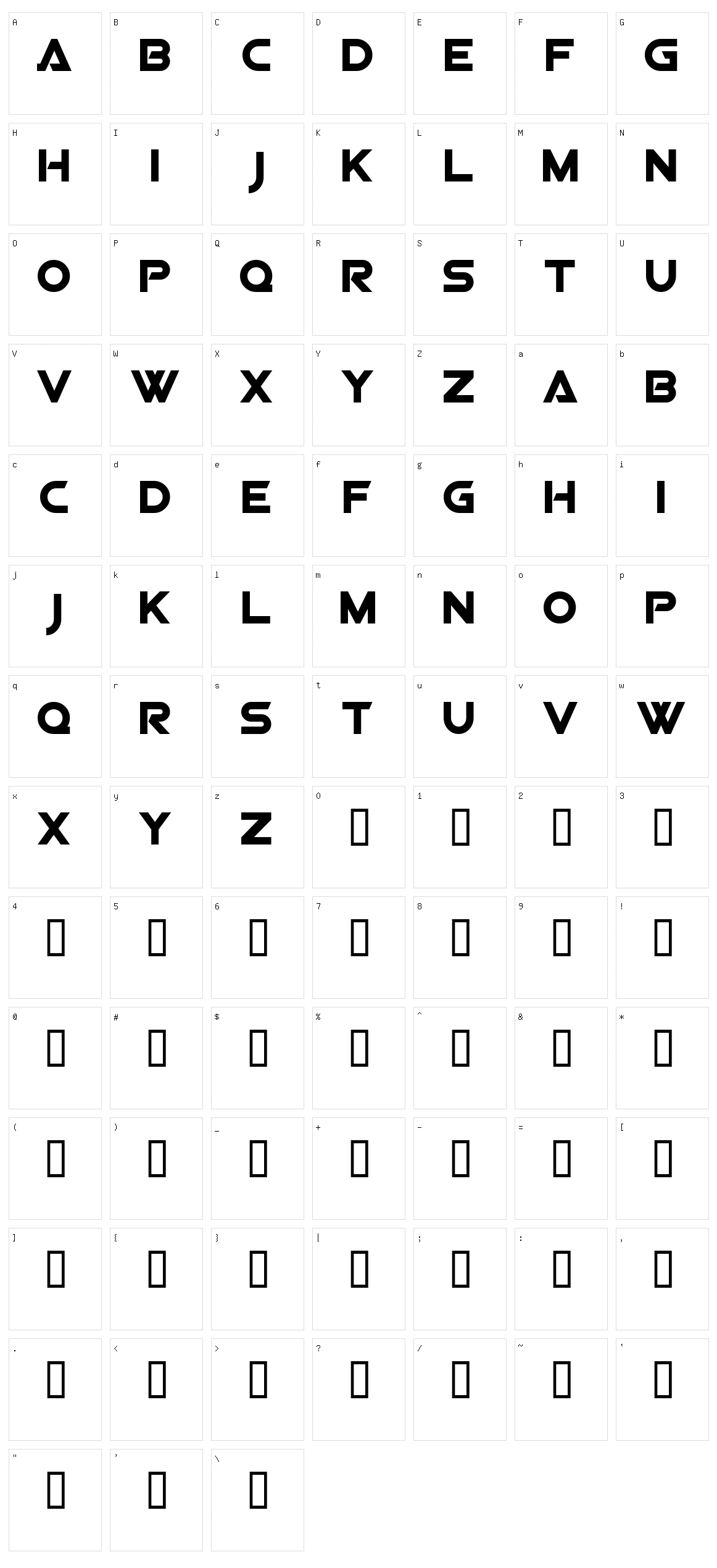
Viper Squadron
VIPER SQUADRON v1.0, created by ShyWedge, 1999.
v1.0 FEATURES
- Lowercase and uppercase letters (numbers and punctuation not
available in this version).
- Proper spacing and kerning.
- To connect characters using Viper Squadron or Viper Squadron
Solid, use uppercase case letters (note: because of legibility,
not all characters are designed to connect.)
For example, type the following line using Viper Squadron:
baTtleStar galACtiCA